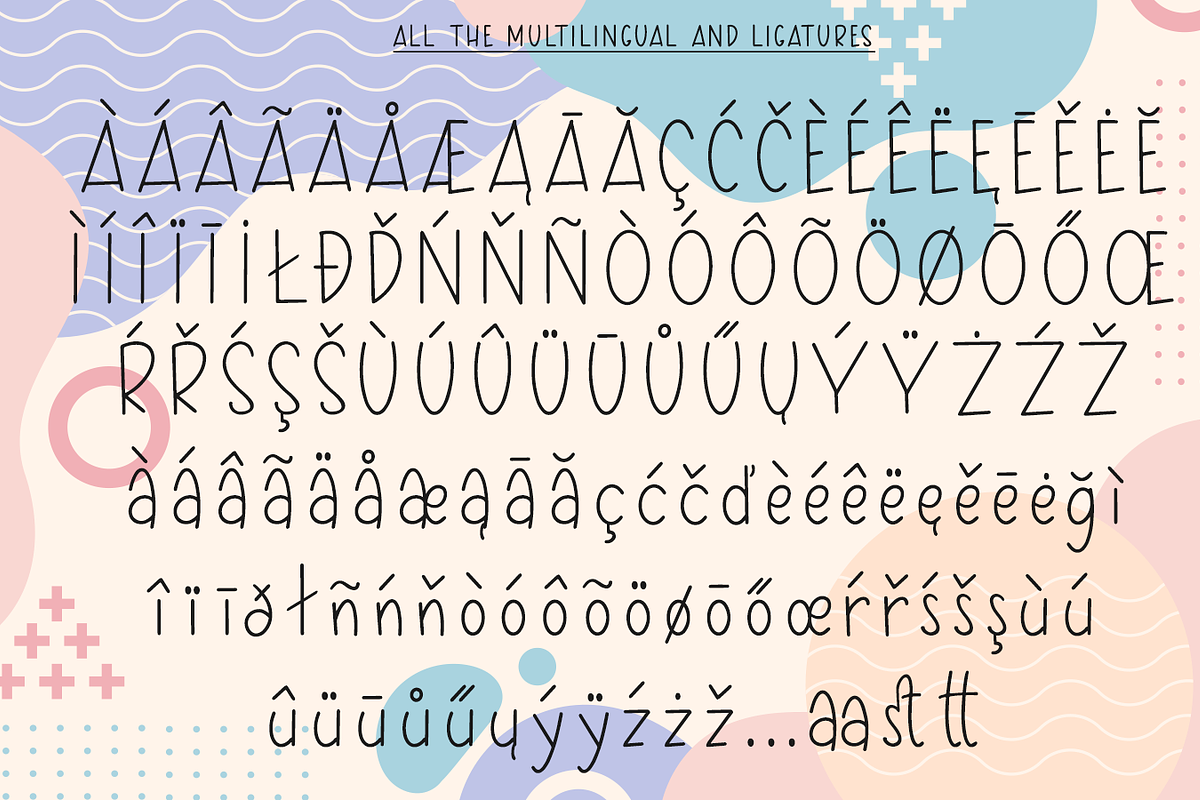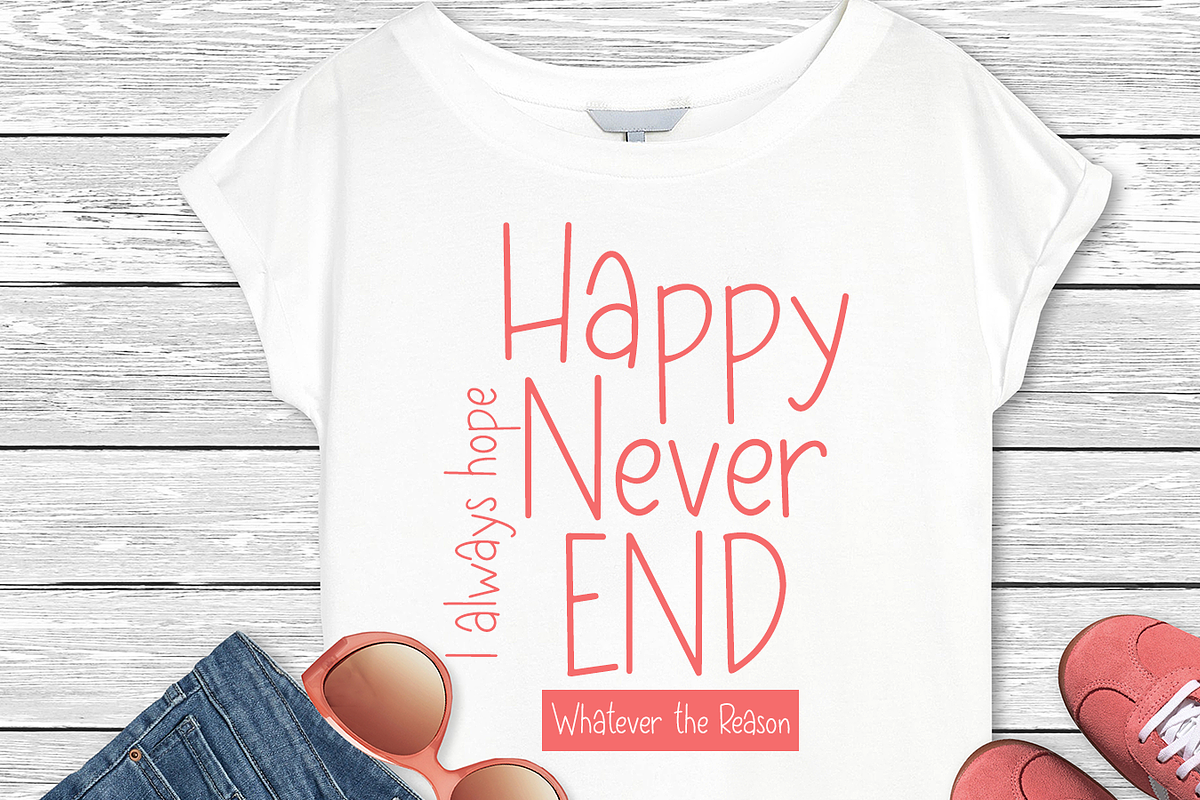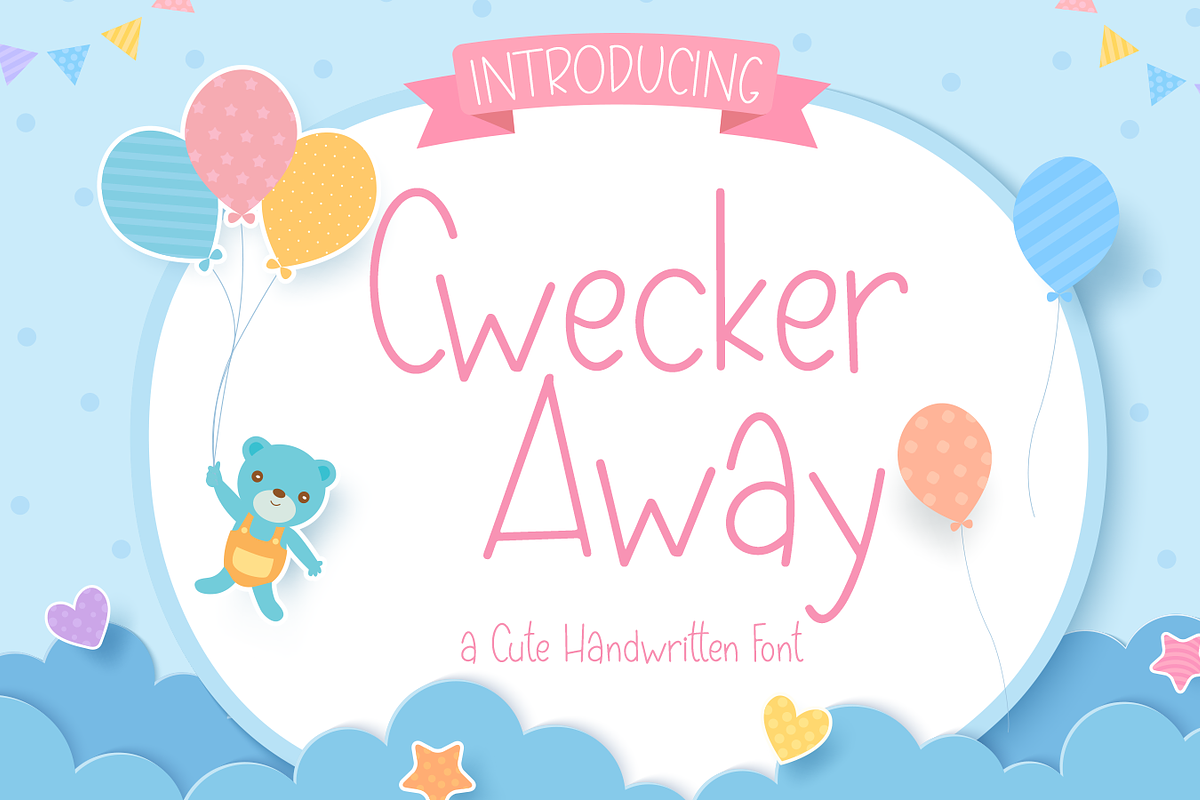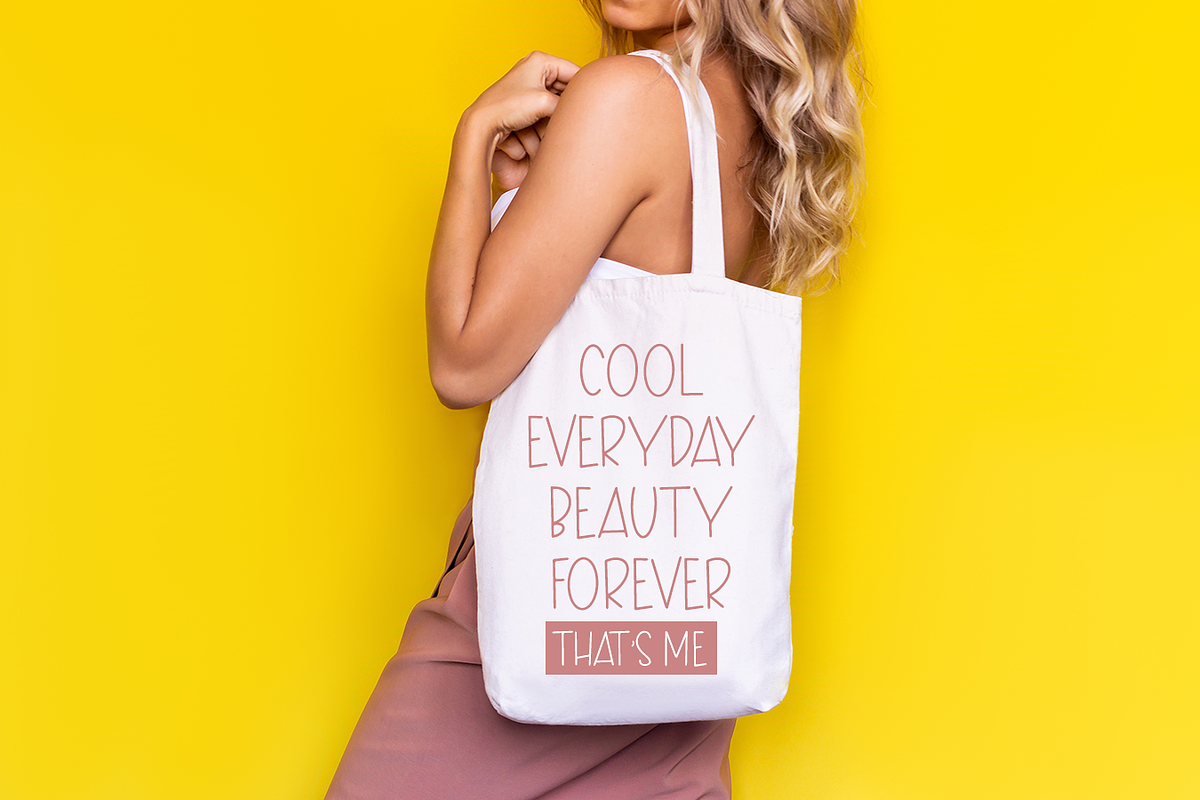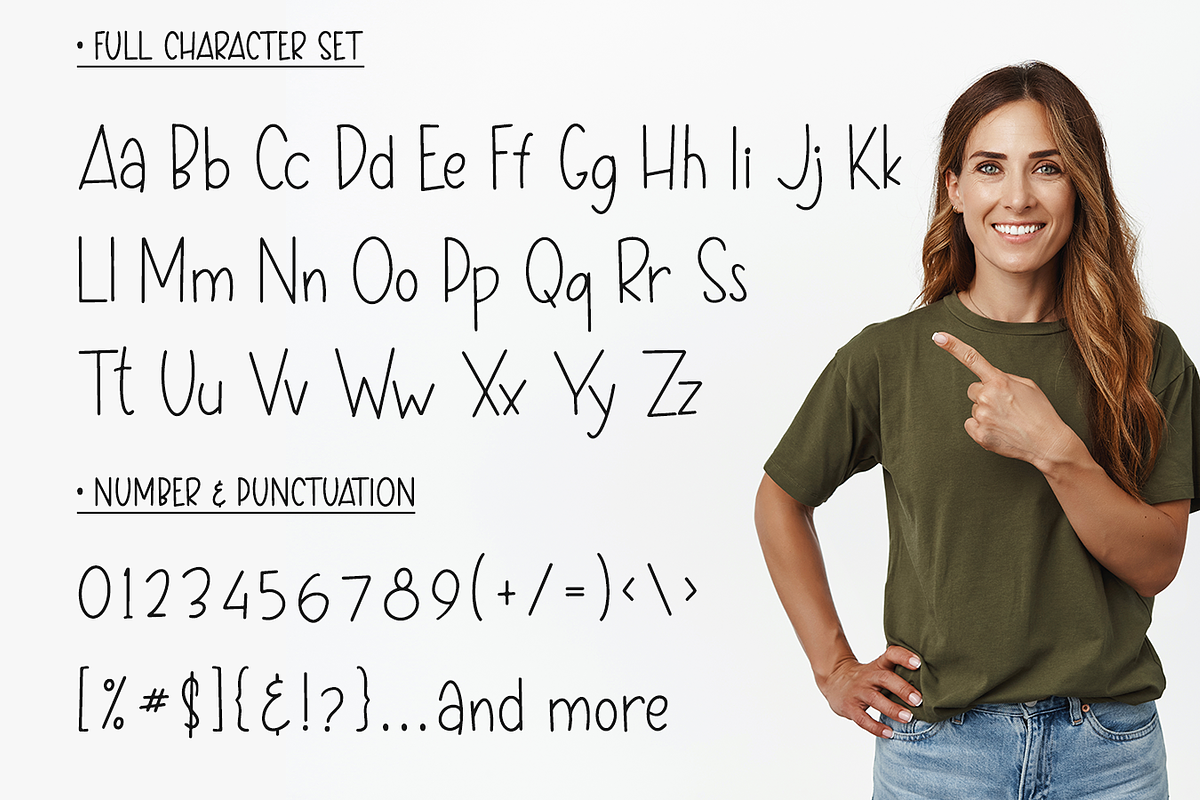
Cwecker Away is a cute comic font, Its authentic look will add a personal and realistic feel to your designs. Use this font for your favorite projects and explore its endless possibilities. This font is PUA encoded which means you can access all of the glyphs and swashes with ease!
Honestly it works perfectly for headlines, logos, posters, packaging, T-shirts and much more.
- Regular version
- Character set A-Z in Uppercase and Lowercase
- Alternates in Uppercase and Lowercase
- Ligatures in Lowercase
- Accented Characters
- Multiple Languages Supported